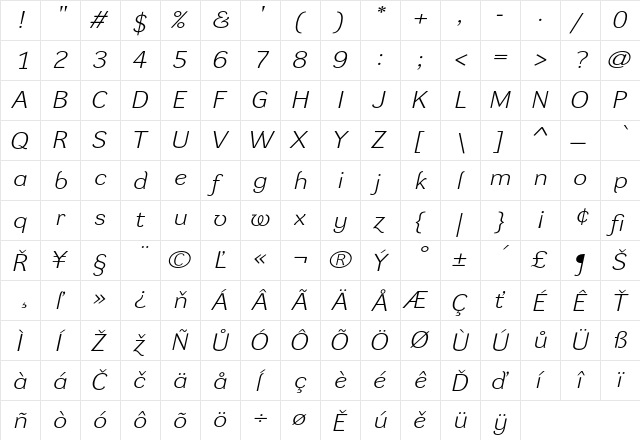
Dynamo LXE Regular
Design Context for Dynamo LXE Typeface
Dynamo LXE takes a measured approach to typography — its balanced proportions and neutral character make it a reliable workhorse for both digital and print work.